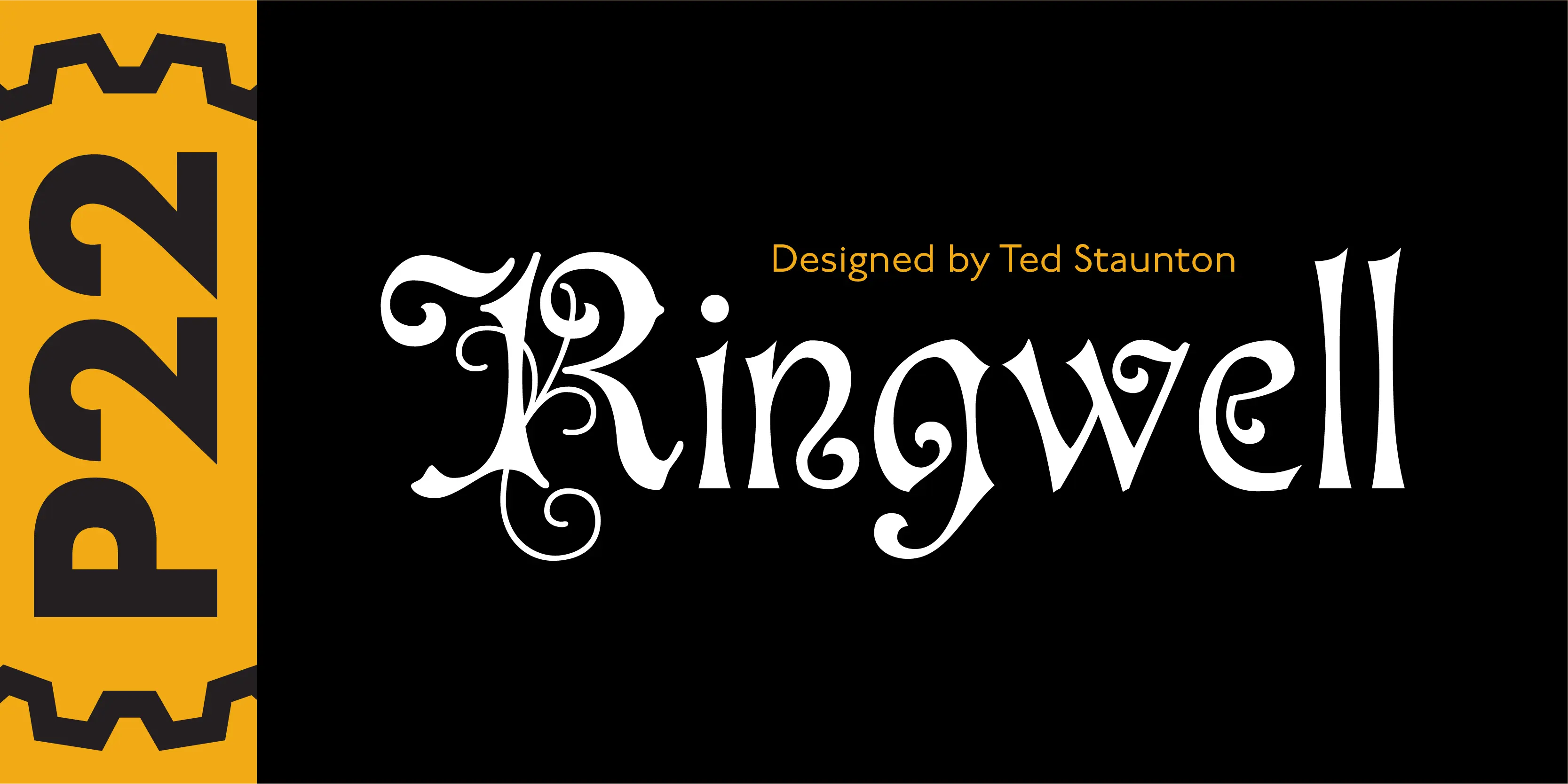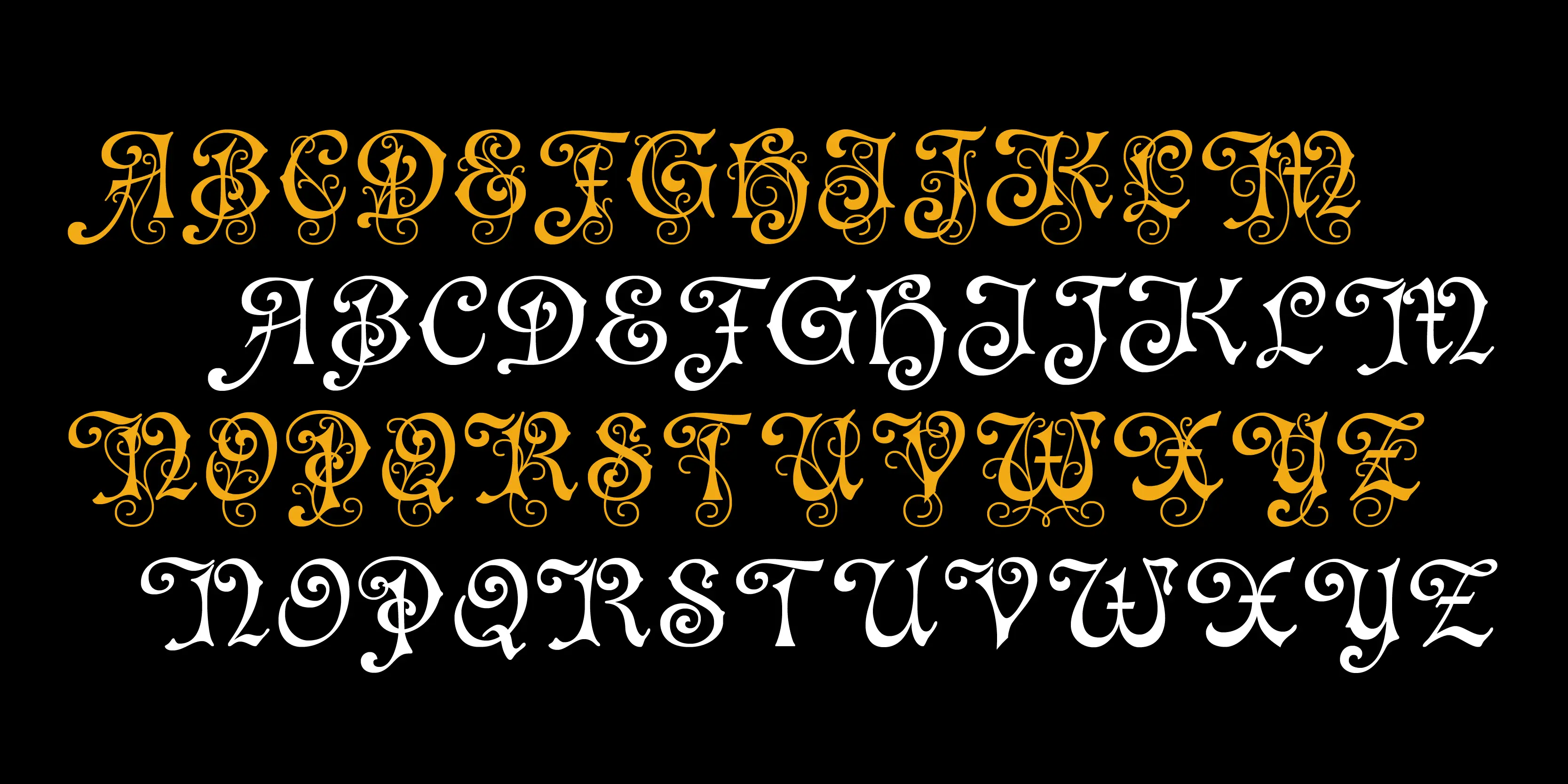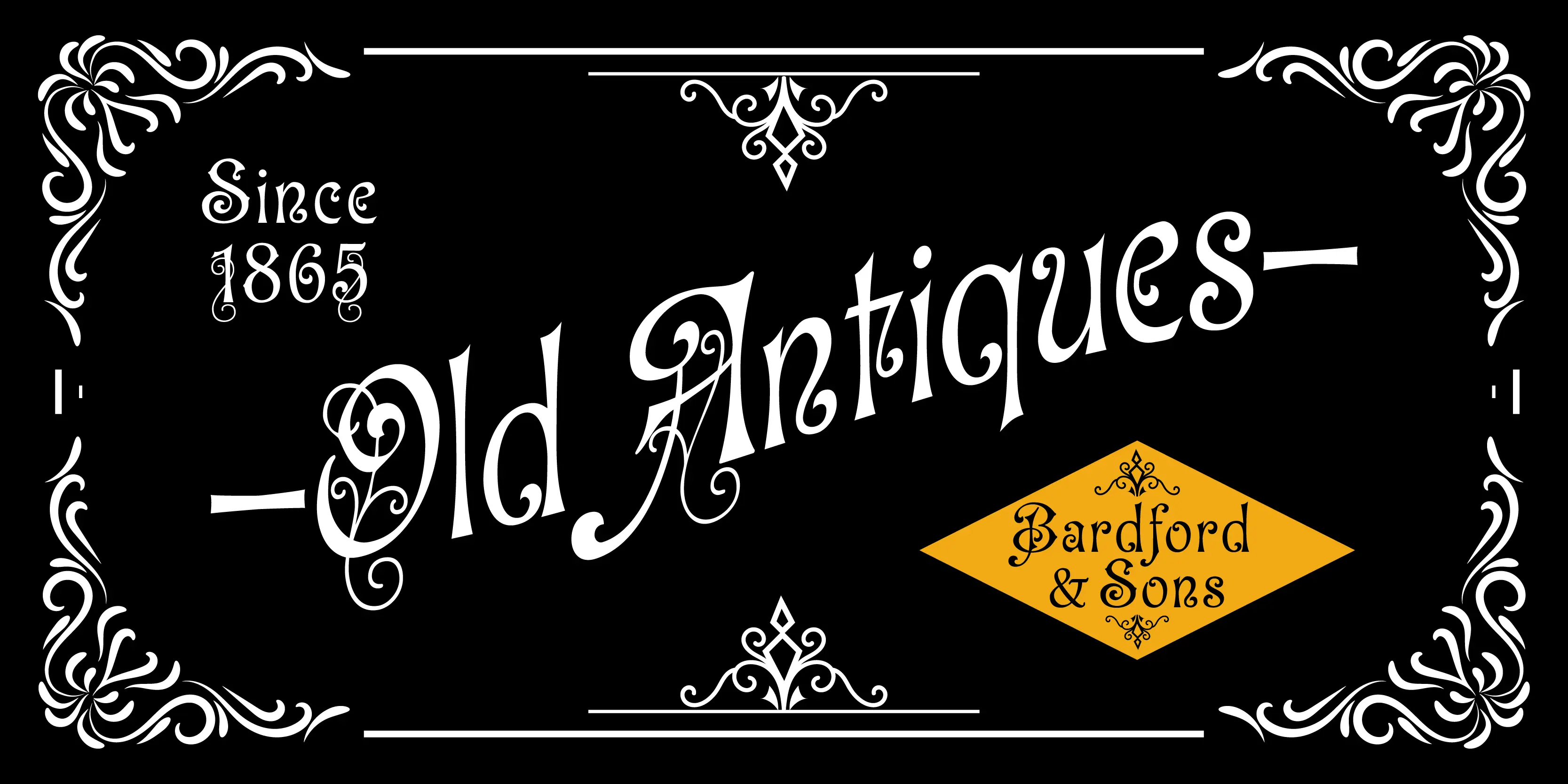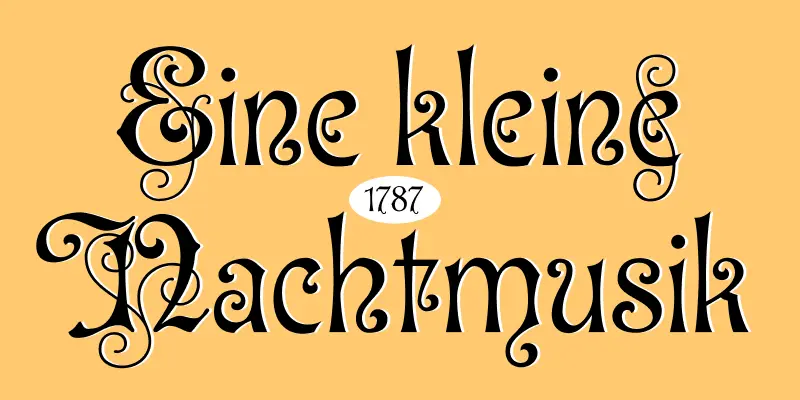
Ringwell Font
Ringwell
Ringwell is pure Victoriana in two styles, plain and decorative, that can be mixed and matched. The Pro version combines the two styles using stylistic alternate features.